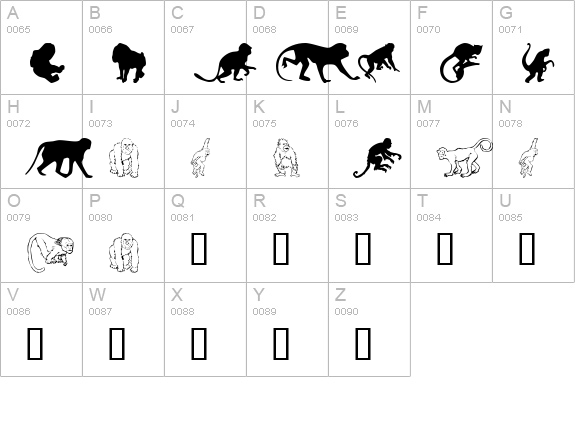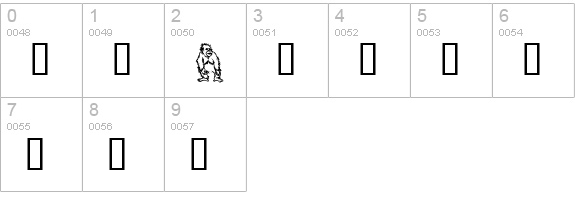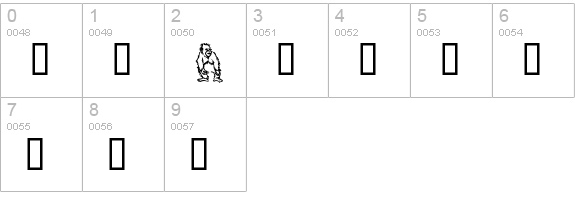
MonkeysDC Primates Font Details
MonkeysDC Primates font is a whimsical and playful typeface inspired by the lively and mischievous nature of monkeys. With its charming curves and unique character designs, this font is perfect for adding a touch of fun to any project. Whether you're working on a children's book, a party invitation, or a branding project that needs a bit of personality, MonkeysDC Primates font is sure to make your text stand out. What's even better is that MonkeysDC Primates font is free to download at FontsMarket.com. So, go ahead and grab this delightful font to add a touch of whimsy to your designs today!